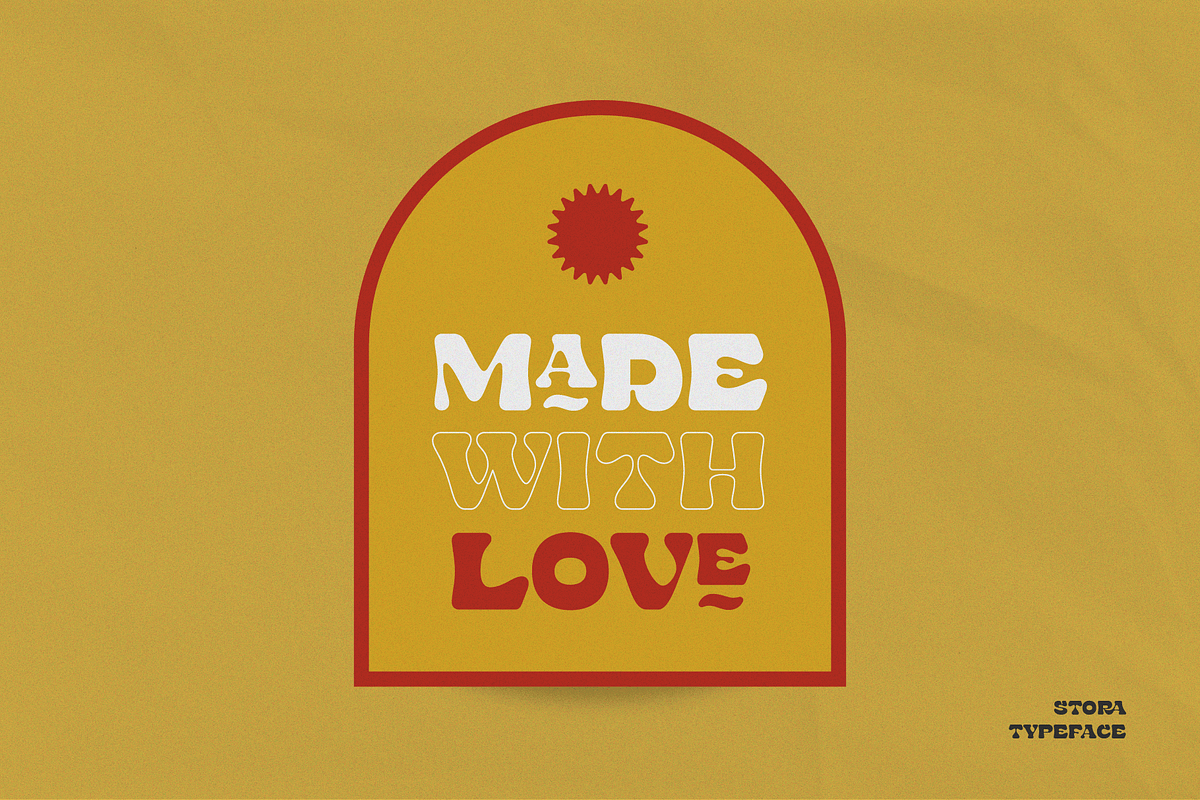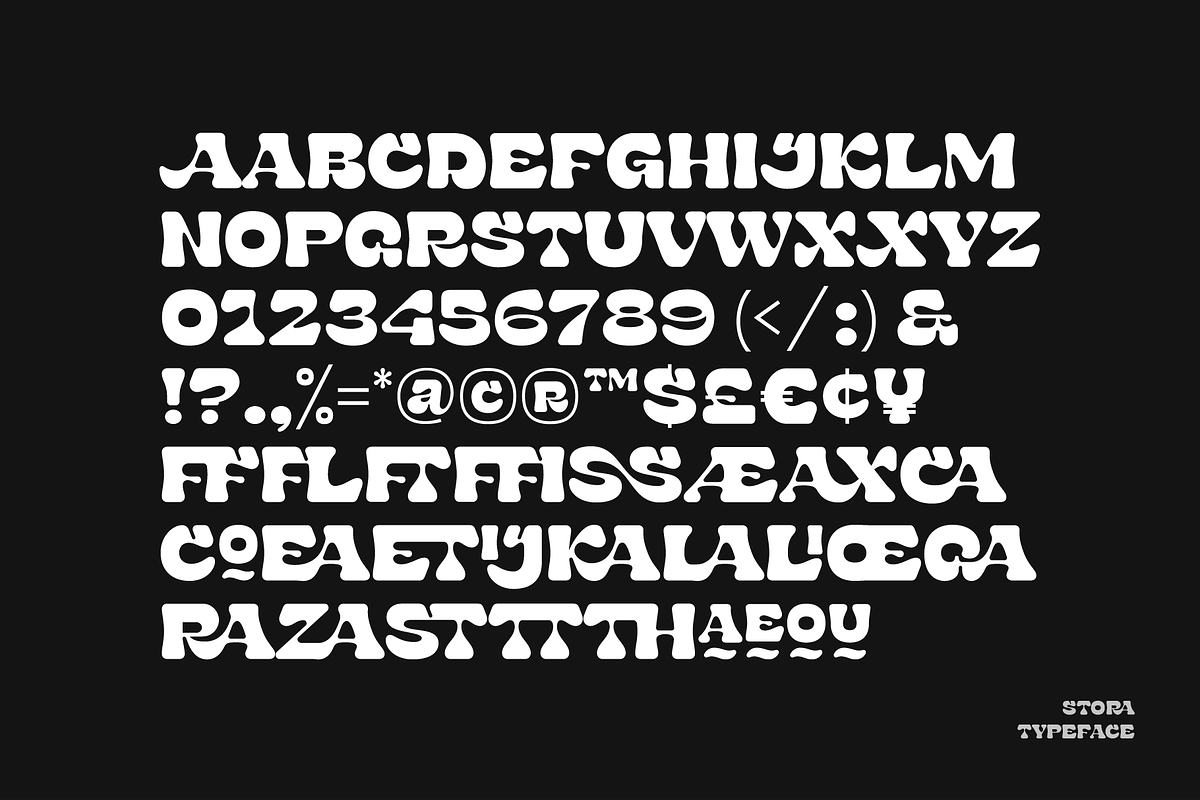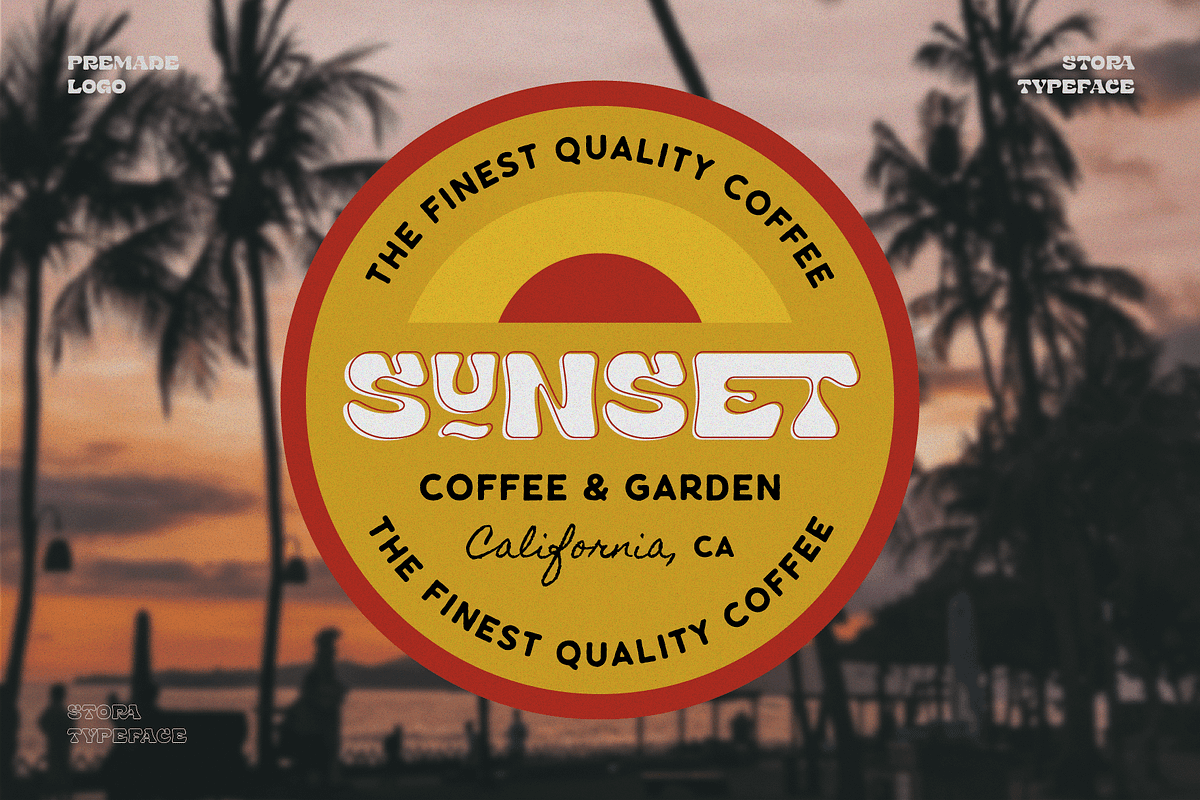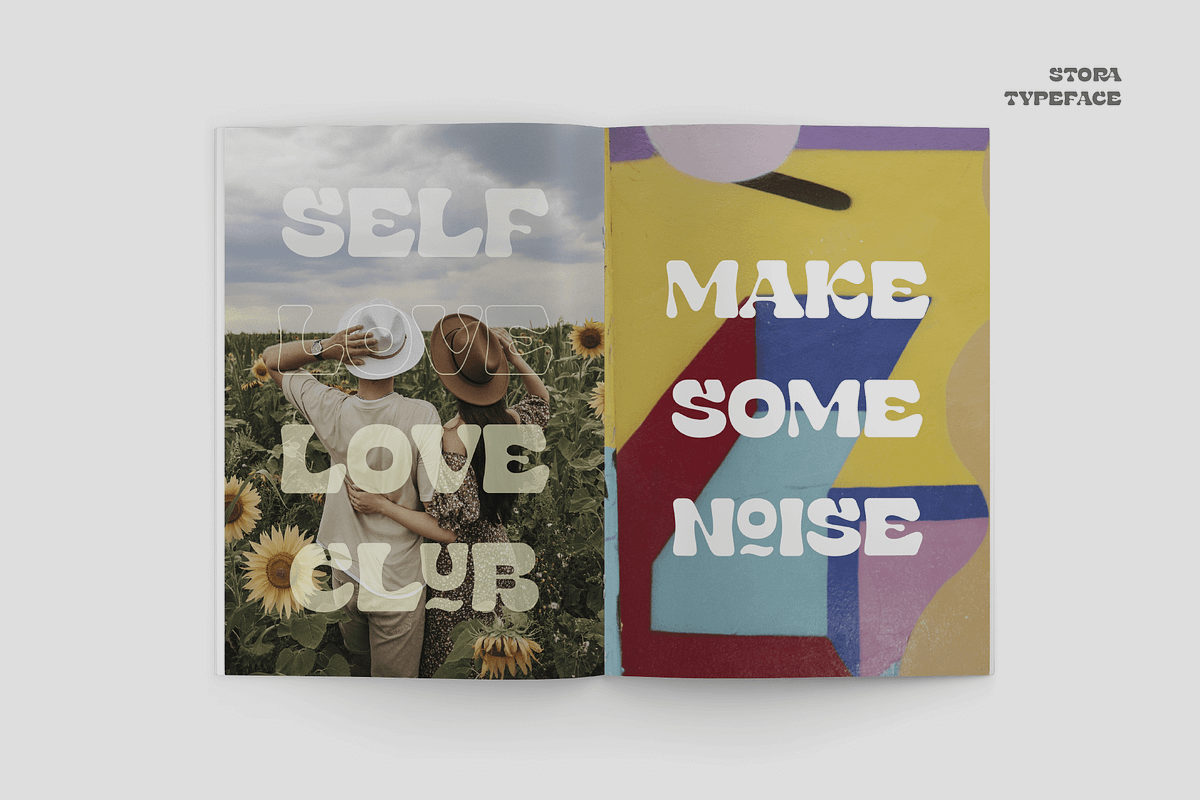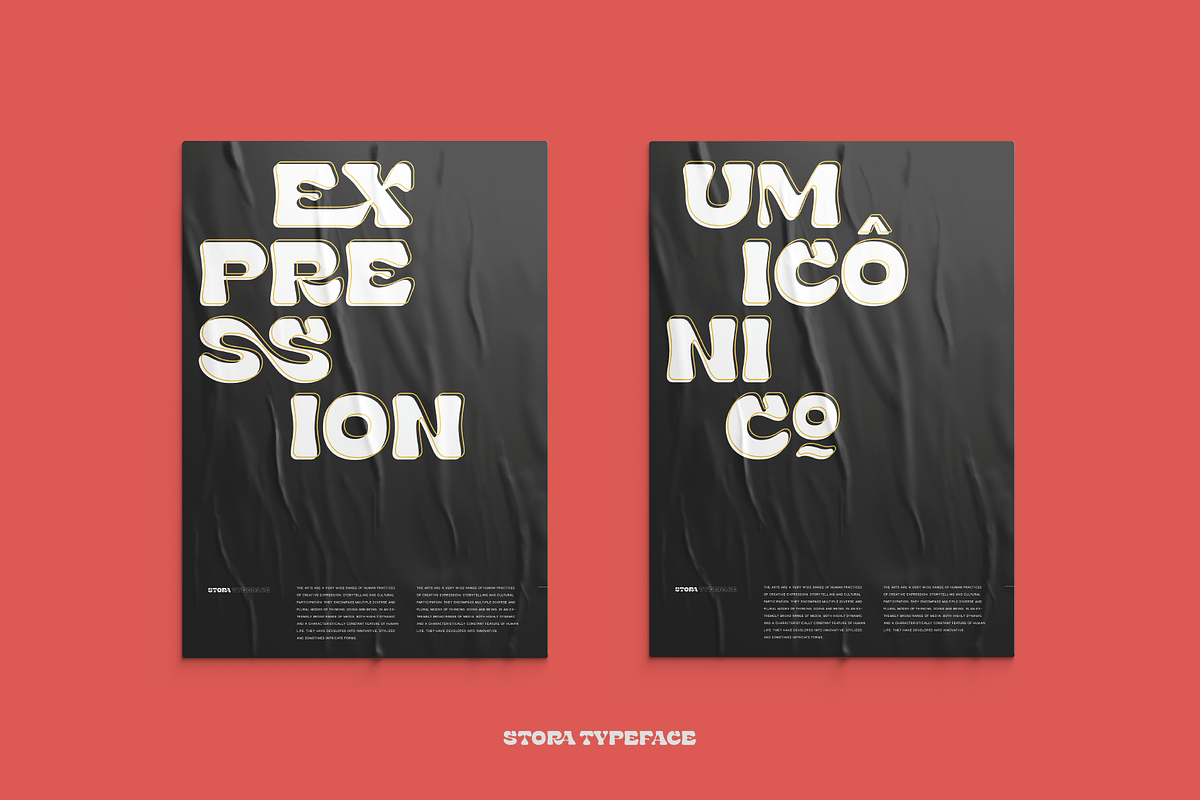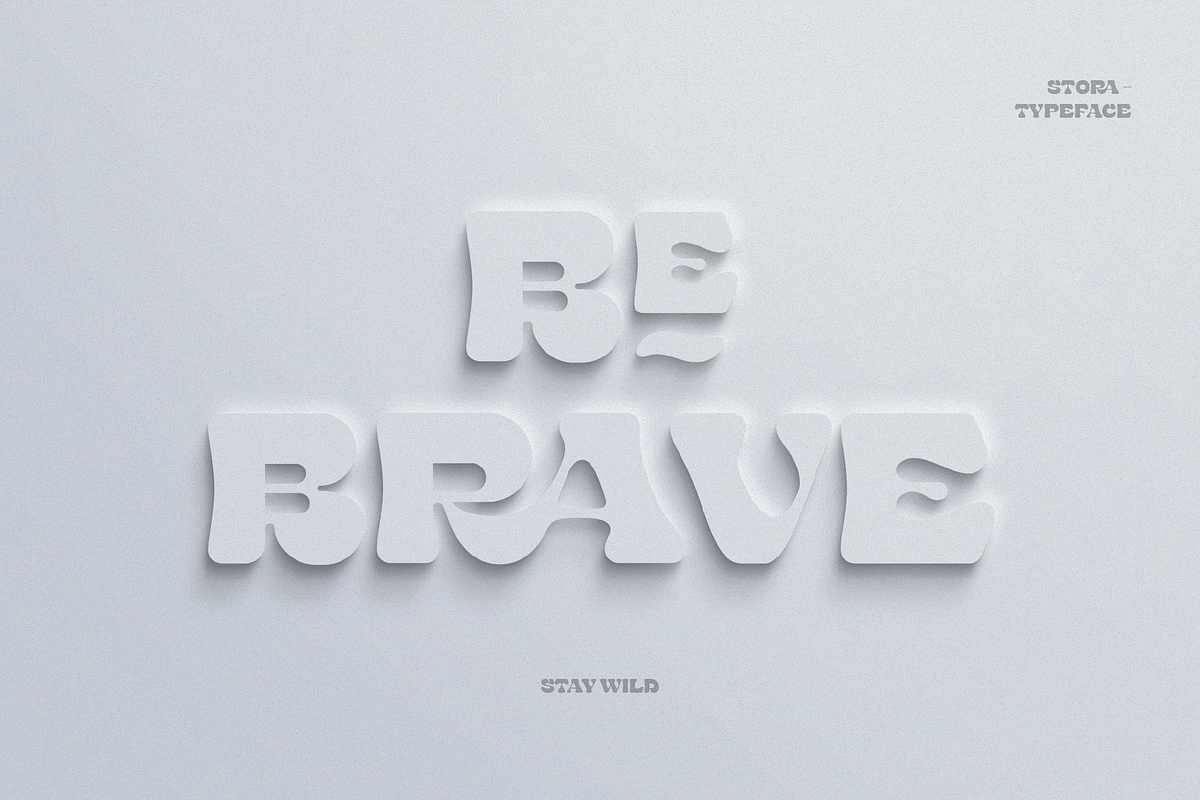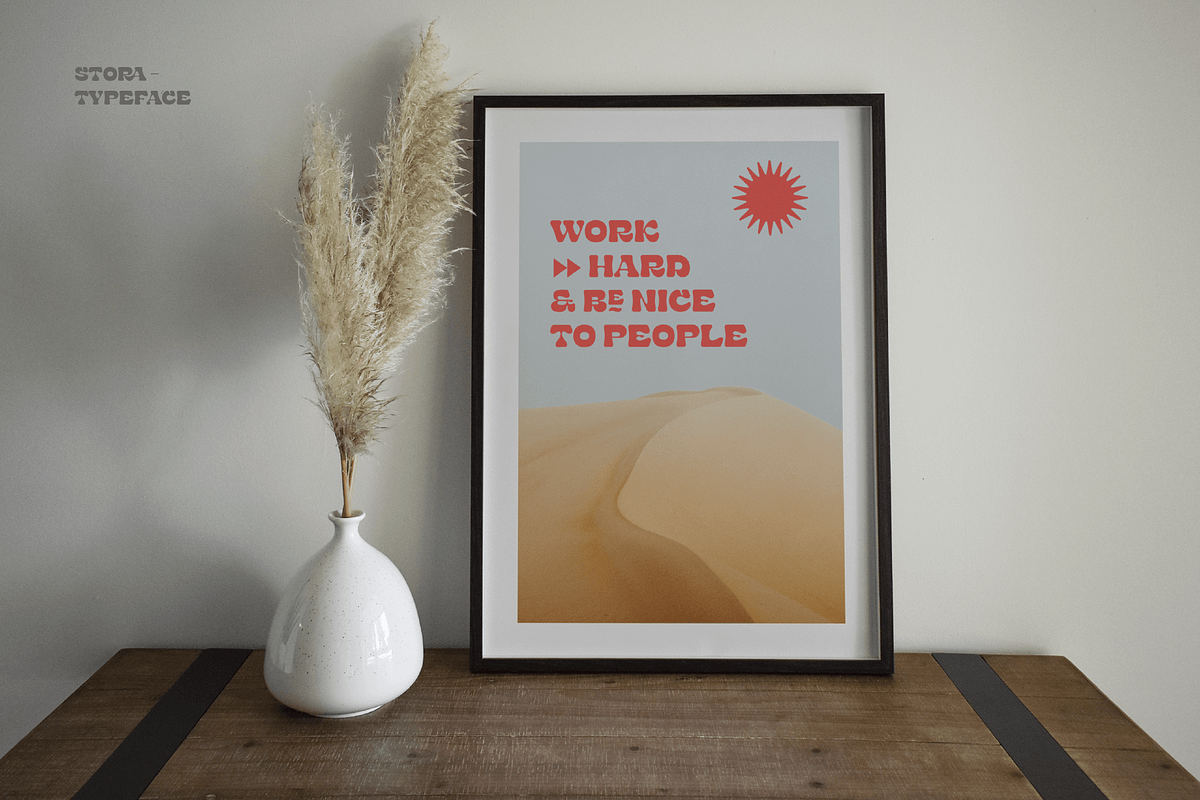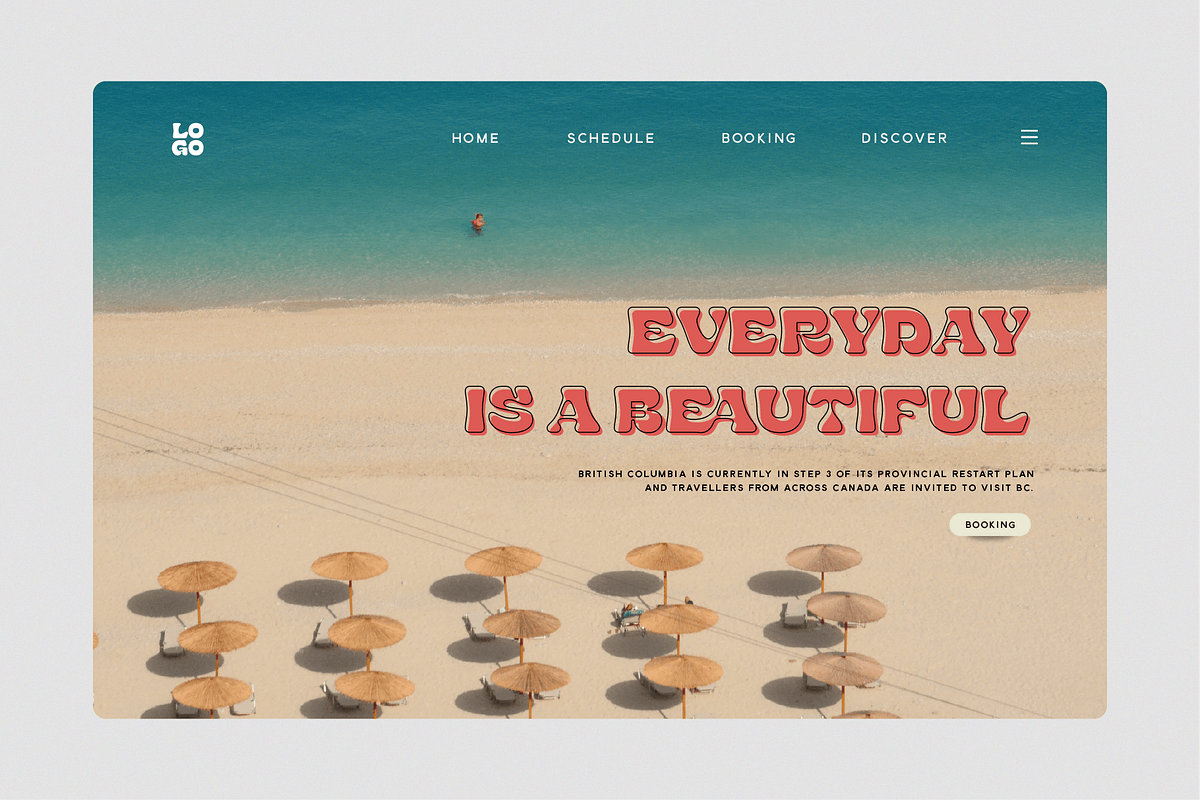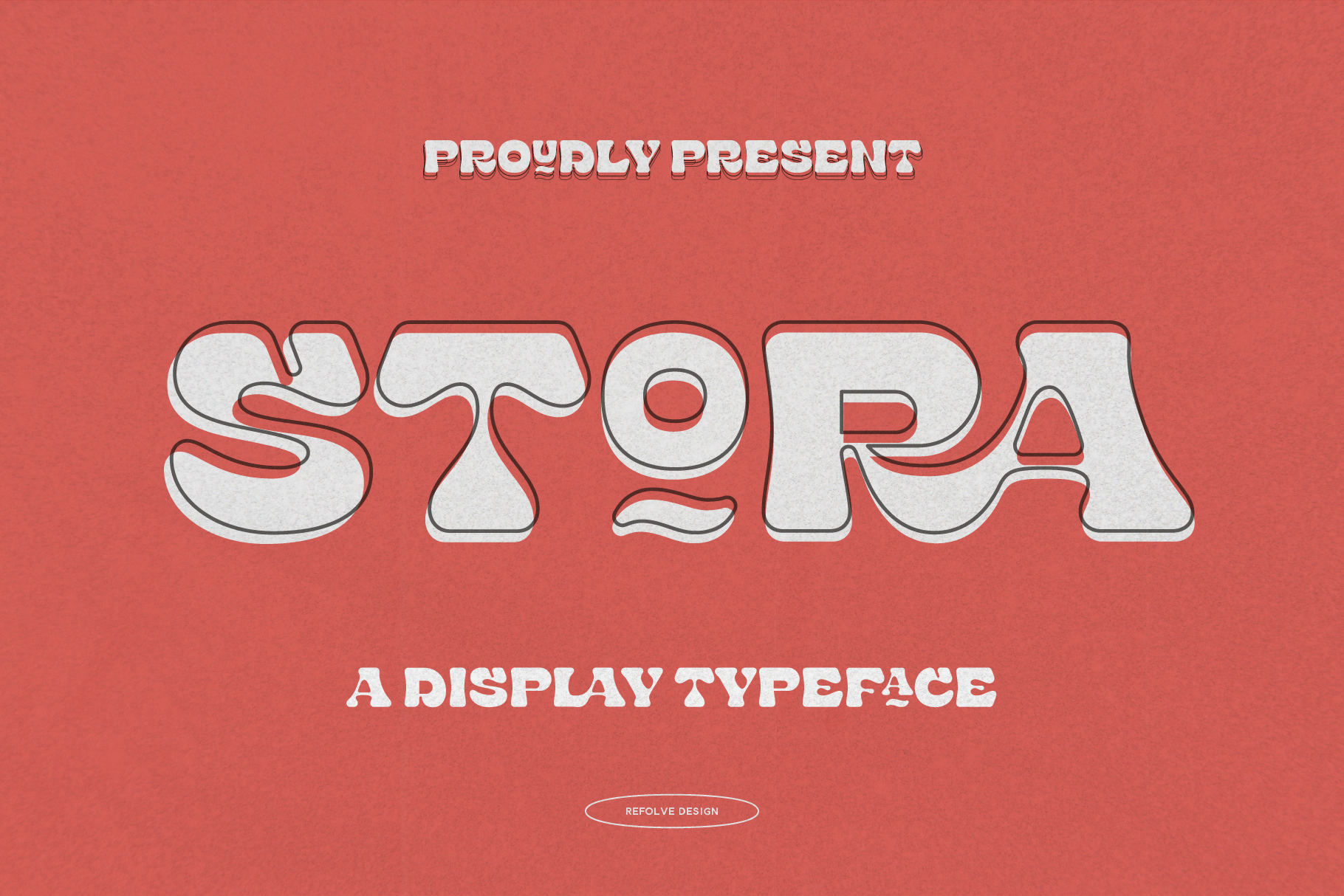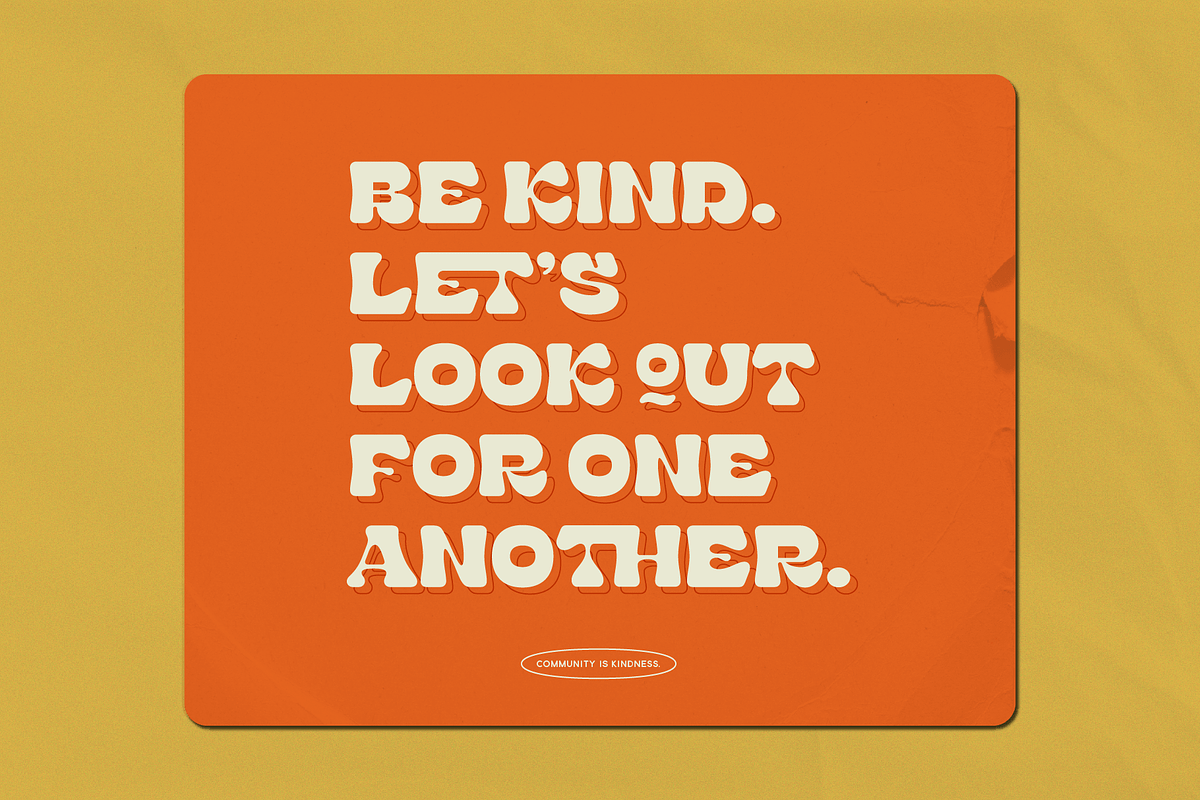
Stora - Display Typeface
Introducing Stora Typeface
Stora is a new display typeface with mid-19th century styles with strong, unique shapes, that can handle a lot of design projects. Together or apart, the fonts are perfect for an authentic retro feel on your branding purpose, advertising, poster design, book covers, headlines, prints, merchandise, websites, magazine, album covers, quote designs and more.
Opentype Feature : Stora Typeface has also been coded to include some of double letter ligatures and of course the stylistic set of lowercase alternate characters.
Stora Typeface includes multilingual support.